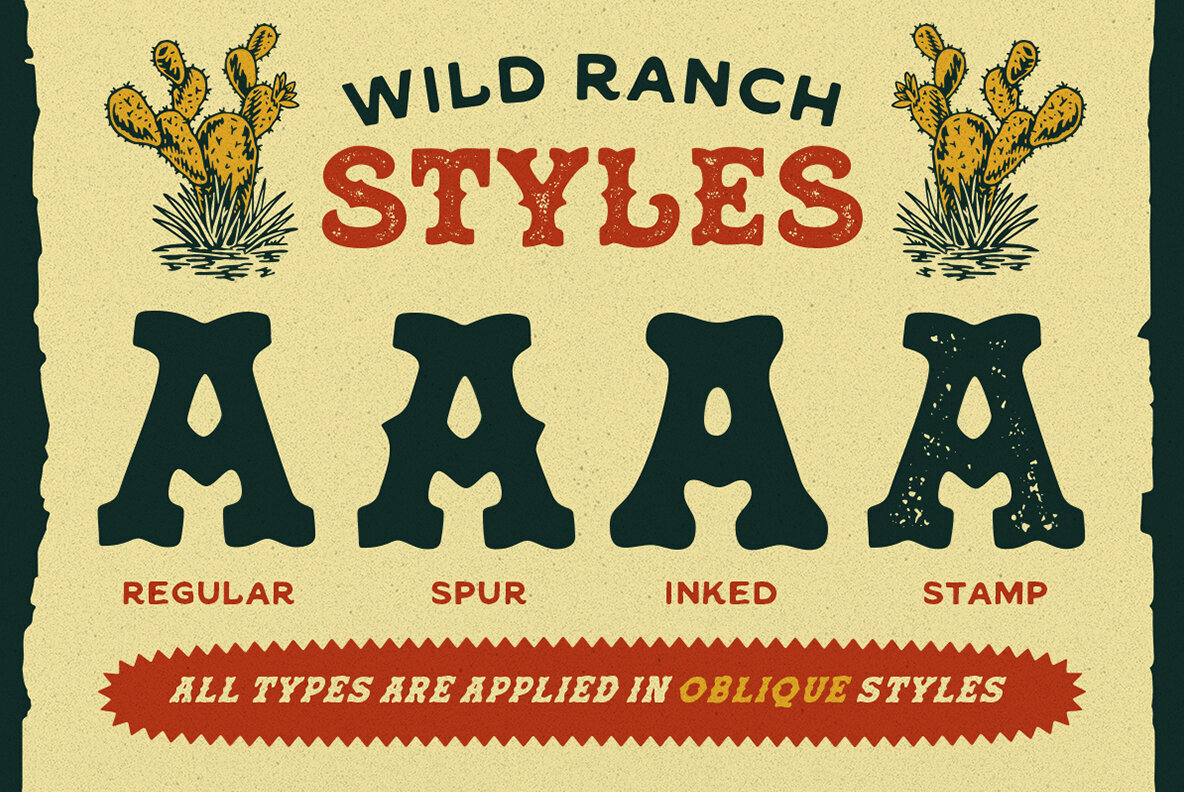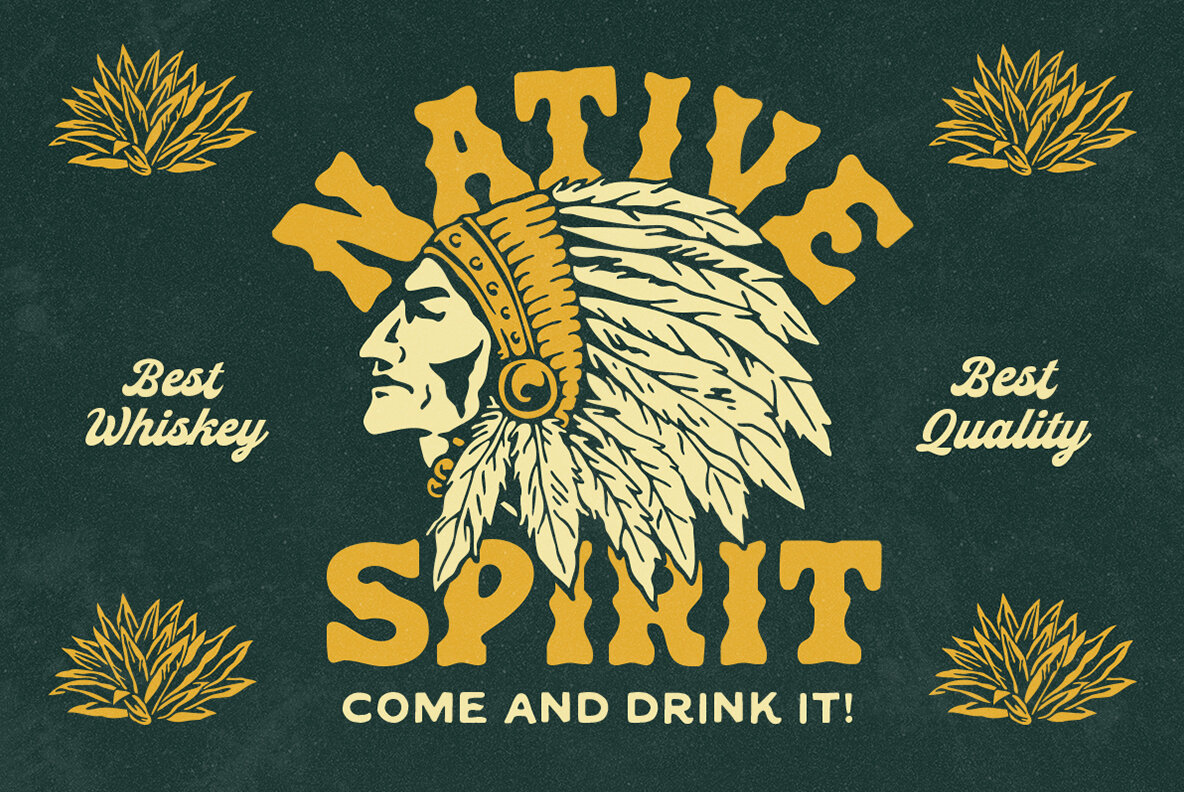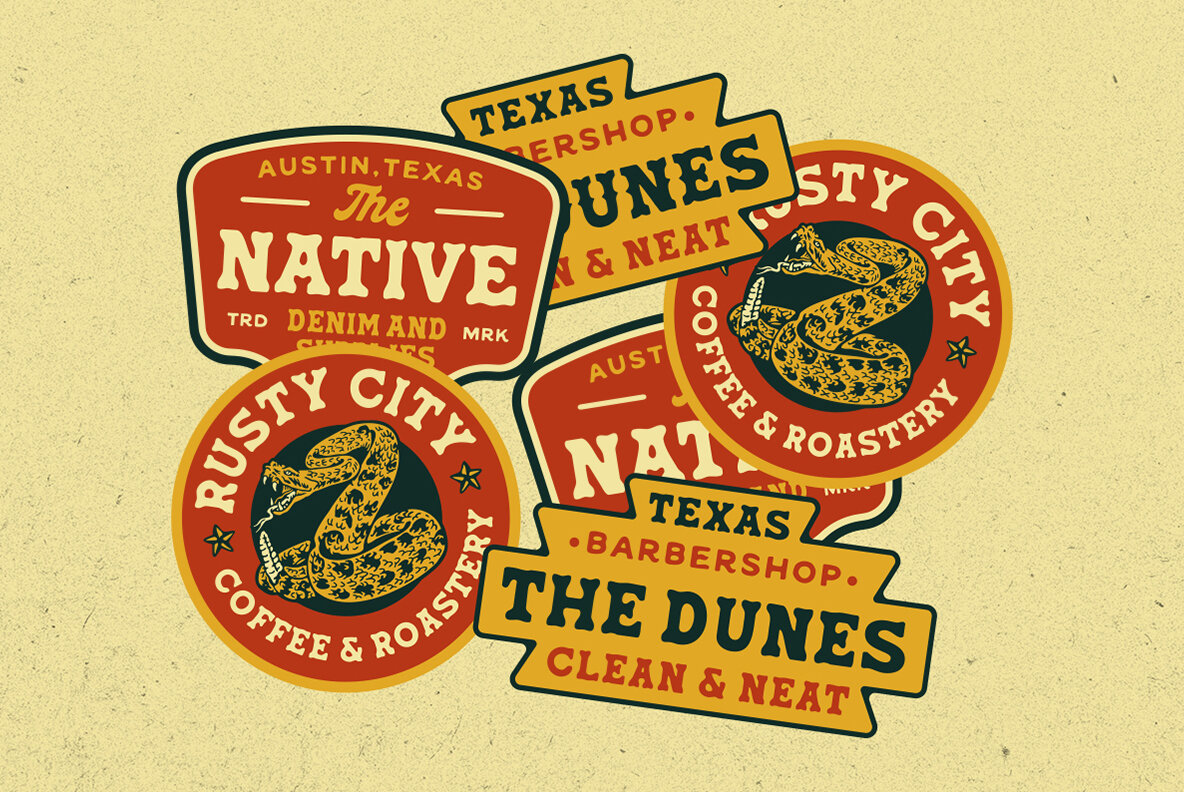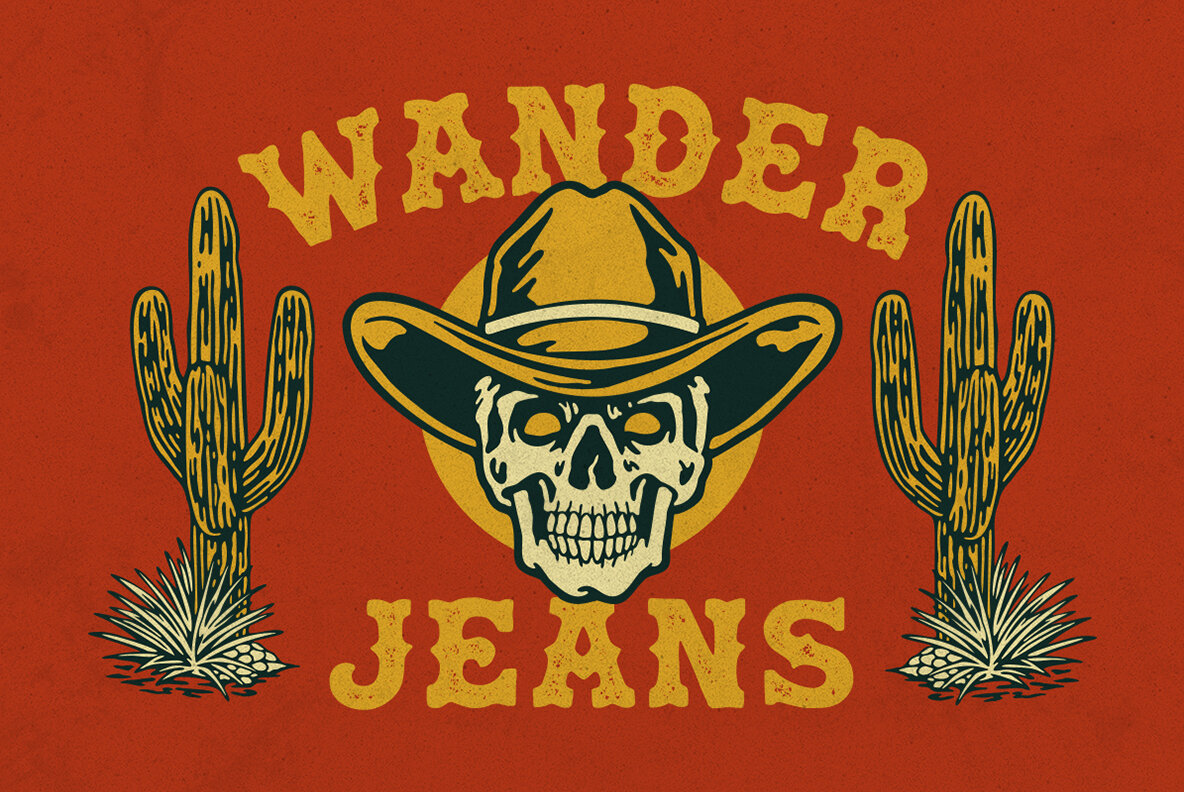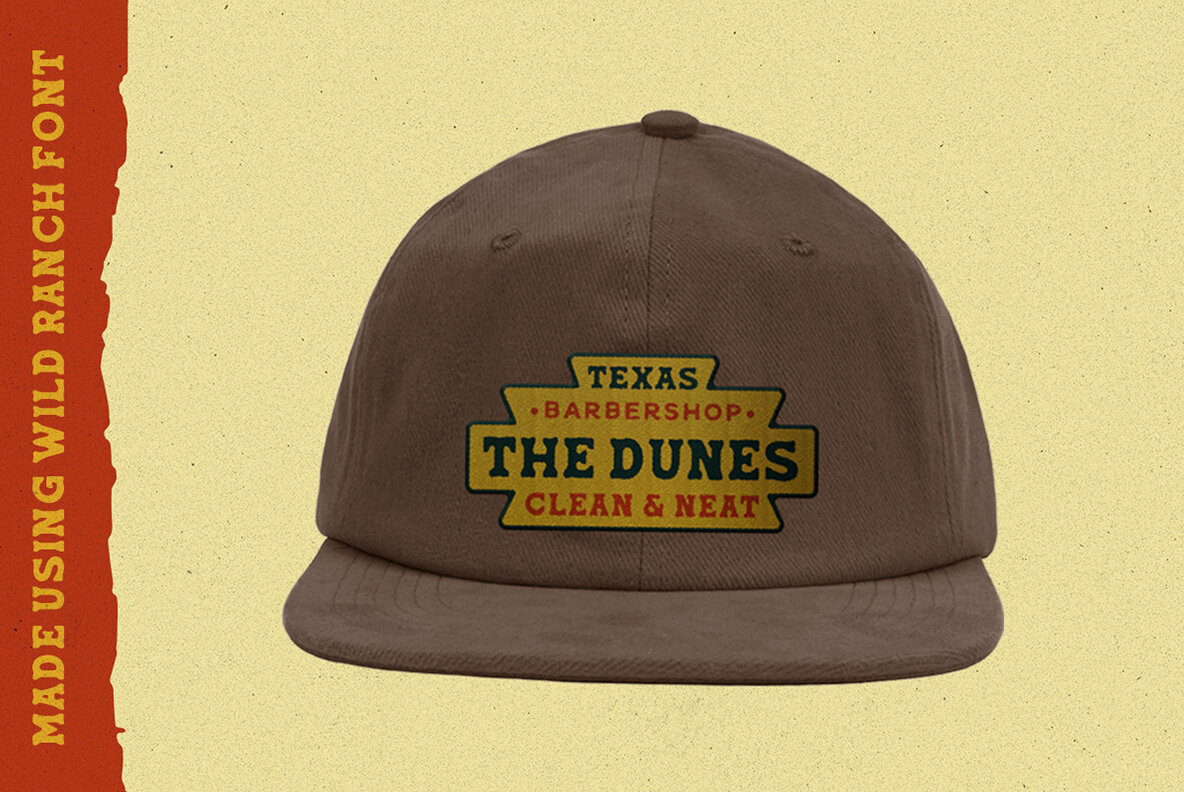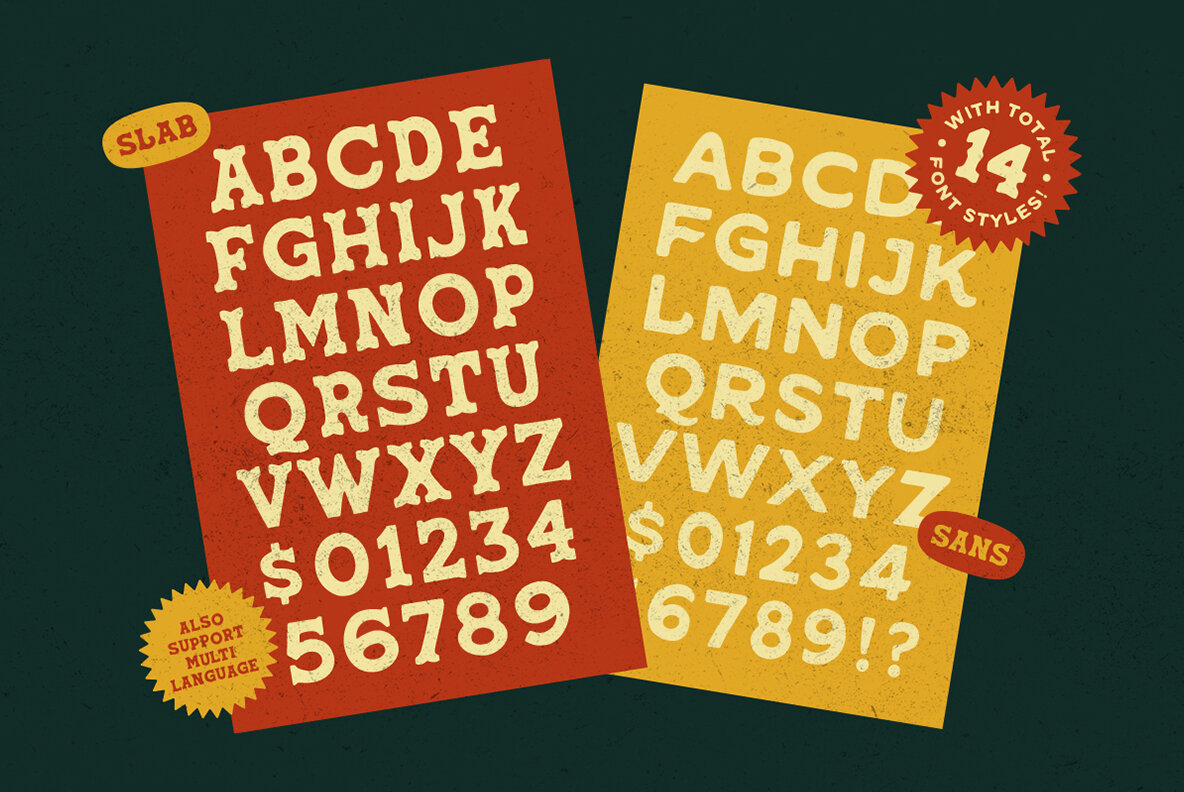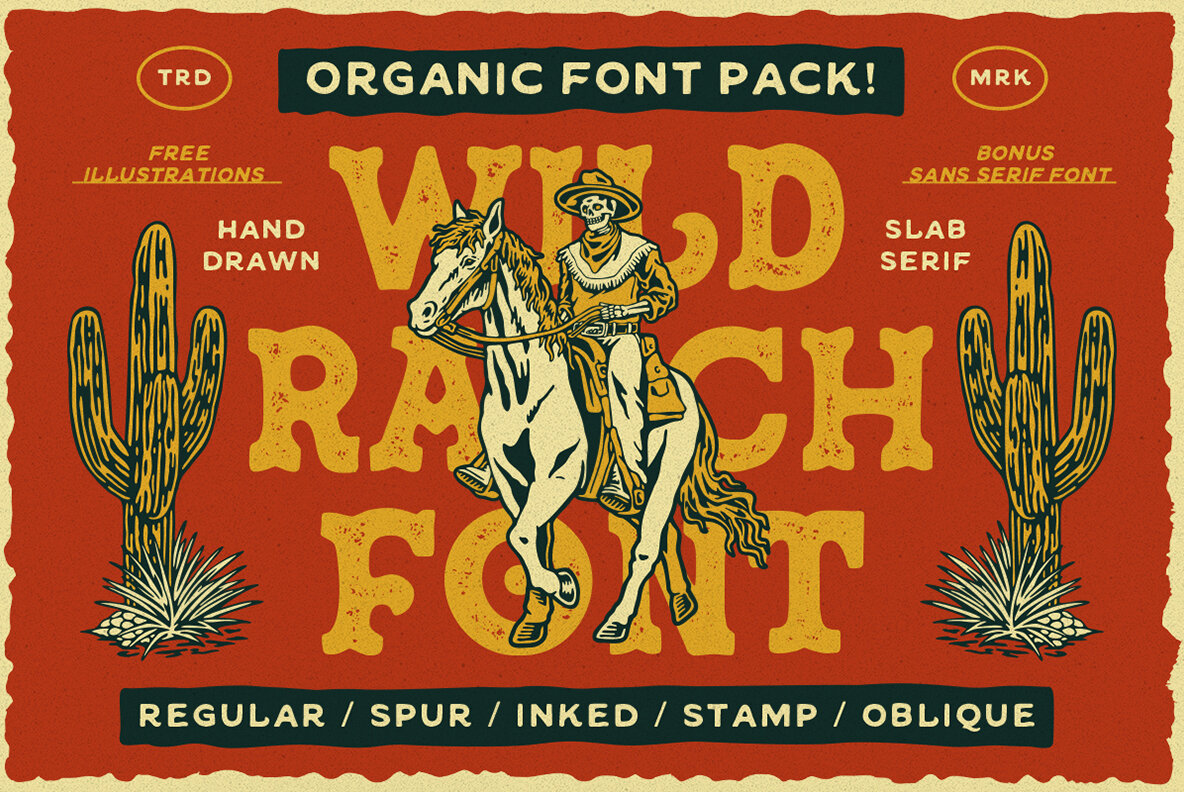
Wild Ranch Font
Wild Ranch is a dynamic hand-drawn slab serif typeface, designed to bring a unique blend of vintage appeal and organic feel to your projects. This comprehensive collection consists of 14 distinct fonts, each showcasing a bold and authentic style. Ideal for those seeking a classic western touch, Wild Ranch elevates the aesthetic of any design with its rugged, yet refined character.
In addition to its versatile typography, Wild Ranch includes extra illustrations to enhance your creative possibilities. This makes it an ideal choice for anyone aiming to craft designs with a nostalgic and rustic atmosphere. Perfect for branding, signage, packaging, and more, this typeface offers a myriad of creative options for achieving a timeless and impactful look.